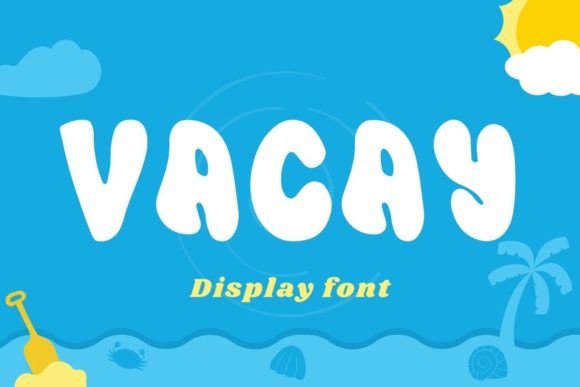
Prepare to be mesmerized by Vacay Font, the crown jewel of display fonts, meticulously crafted by the ingenious zikadoozz. Immerse yourself in the captivating world of wavy retro groovy aesthetics, where irregular lines and uneven letters intertwine to form a visual symphony of energy and dynamism.
Unleash your creativity and let Vacay Font transport you to a realm of extraordinary designs. Picture yourself crafting posters that exude a vintage charm, album covers that pulsate with a retro heartbeat, and designs that radiate an edgy, unforgettable aura. Vacay Font is the key to unlocking a universe of boundless possibilities.
Step into the spotlight and command attention with Vacay Font's captivating allure. Its unique character dances across your designs, captivating audiences with its infectious energy and undeniable charm. Experience the thrill of creating designs that resonate with a retro flair, leaving an indelible mark on the minds of all who encounter them.
With Vacay Font as your creative companion, you'll embark on a journey of artistic exploration, pushing the boundaries of design and leaving a trail of unforgettable impressions. Its mesmerizing curves, playful irregularities, and undeniable charisma will ignite your imagination and fuel your passion for creating designs that are truly extraordinary.
Embrace the allure of Vacay Font and unlock the gateway to a world of captivating designs. Let its groovy vibes and retro elegance elevate your creations to new heights of visual appeal. Your designs will radiate with a timeless charm, capturing the essence of the past while simultaneously embodying the spirit of the present.